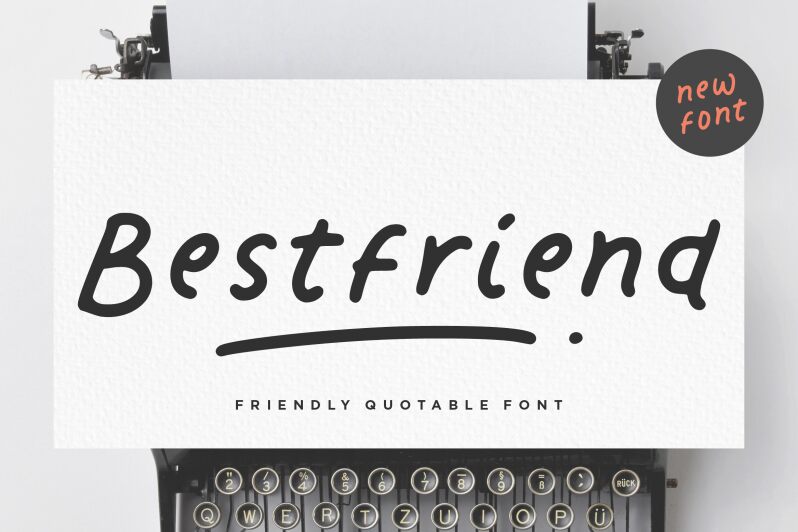
Bestfriend
Bestfriend font by Letterative Studio is a simple, handwritten display font featuring uniform stroke widths and soft curves. Gentle forms with wide apertures make letters aesthetically pleasing in both isolated contexts and within sentences. A freeform style overflows with casual tone and modern airy feel.